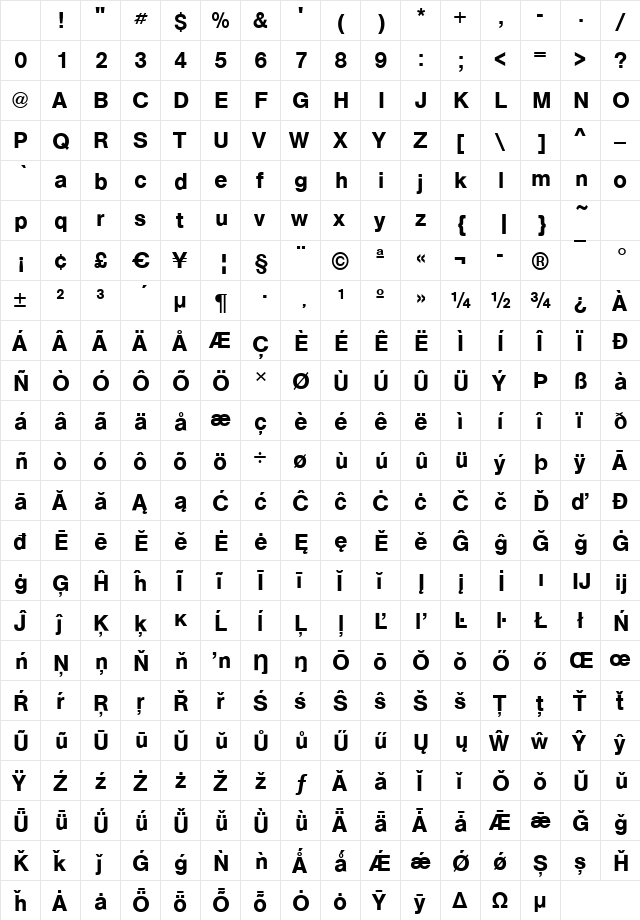
Complete Arezzo Demi glyph index. Displaying only characters natively supported by Arezzo Demi font.
Arezzo is a composed and adaptable typeface that performs quietly and consistently across a wide range of design contexts.